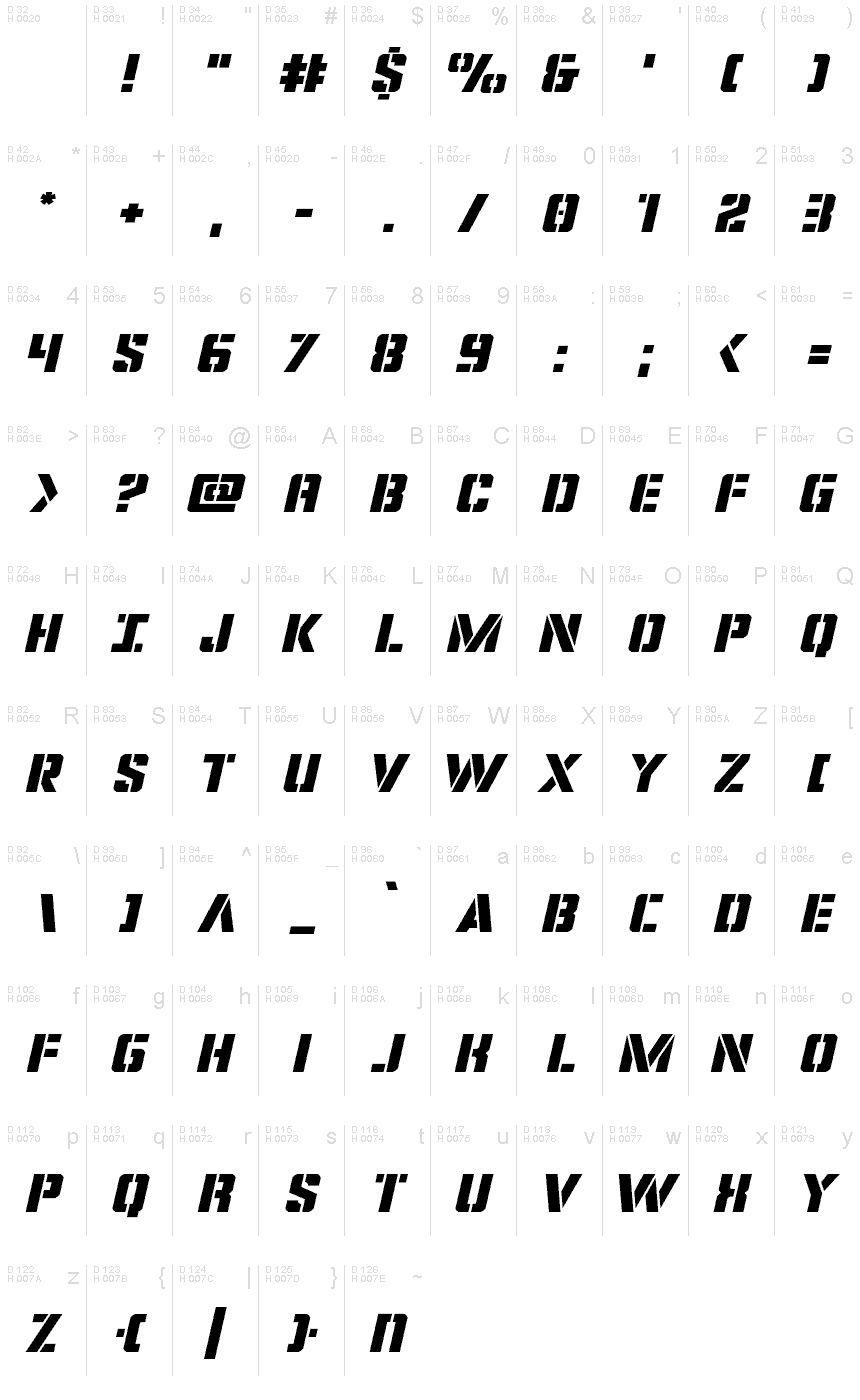
Covert Ops Expanded Italic from Iconian Fonts is a free military display font with a hard, forward slant. Tall, sharply cut letters use abrupt notches and narrow inner gaps, suggesting stenciled equipment markings without copying a standard service alphabet.
Military thrillers and near-future combat games suit its clipped, urgent shapes, especially in title cards and mission graphics. It also fits motorsport merchandise and sci-fi packaging. In those settings, the lettering can turn a product name into a compact unit badge.
Covert Ops Expanded Italic